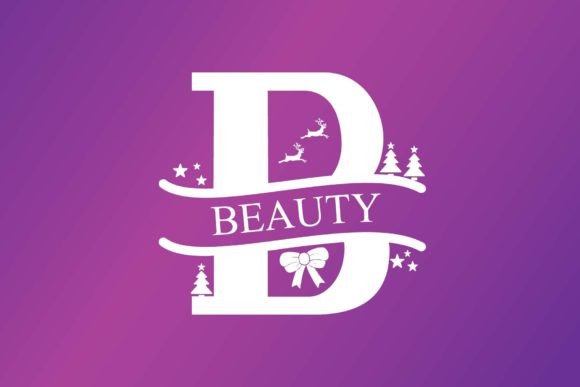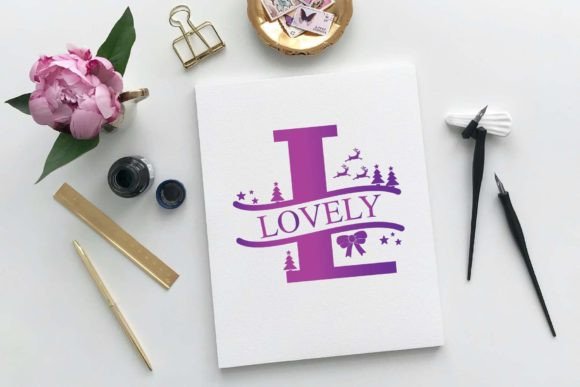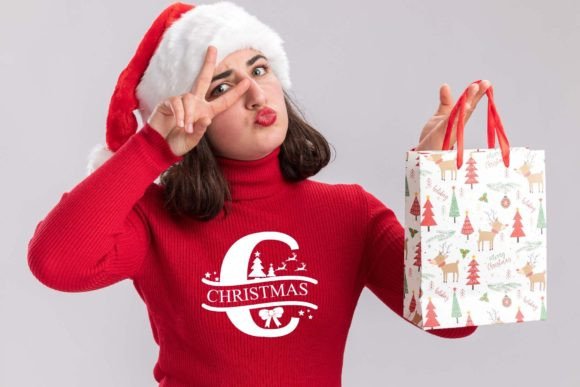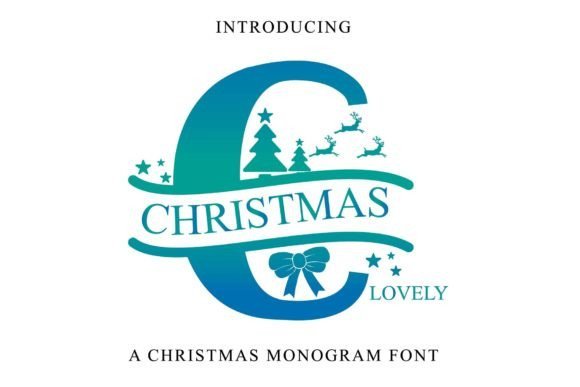
Introduction to Christmas Lovely Monogram Font
Christmas Lovely is beautiful and fun decorative font.
Fall in love with its authentic feel and use it to create gorgeous design This font will be an incredible asset to your fonts’ library, as it has the potential to elevate any creation.
Key Features of Christmas Lovely Monogram Font